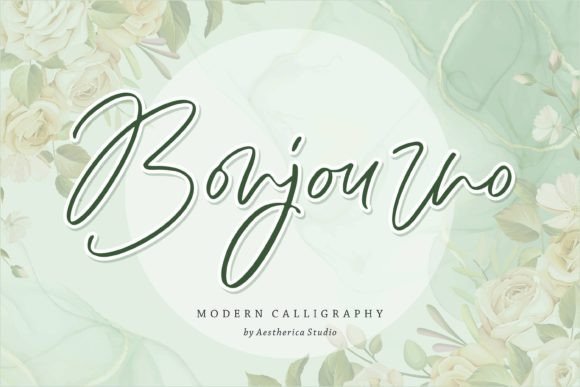
Introducing Bonjourno Font: The Ultimate Modern Calligraphy Font for Designers and Crafters
In the world of typography, calligraphy fonts have always been in high demand for their elegance and sophistication. Among the numerous calligraphy fonts available, Bonjourno font stands out for its unique and beautiful modern handwriting style. In this article, we’ll dive into the features and benefits of Bonjourno font, making it a must-have for designers and crafters.
What is Bonjourno Font?
Bonjourno is a stunning modern calligraphy font that mimics manual handwriting. Its stylish alternates, ligatures, and varying stroke widths give it a realistic handwriting appearance. This font is designed to add a touch of elegance and sophistication to any design project.
Key Features of Bonjourno Font
- Stylistic Alternates: Bonjourno font comes with a range of stylistic alternates, allowing you to create unique and varied designs.
- Ligatures: The font features beautiful ligatures that connect letters seamlessly, giving it a fluid and natural look.
- Tick and Thin Strokes: The varying stroke widths, including tick and thin strokes, add to the font’s handwriting-like appearance.
Use Cases for Bonjourno Font
Bonjourno font is incredibly versatile and can be used for a wide range of design projects, including:
- Logos: Create stunning logos for businesses, events, or personal brands.
- Invitations: Design elegant invitations for weddings, parties, or corporate events.
- Labels: Add a touch of sophistication to product labels, packaging, or branding materials.
- Magazines and Books: Use Bonjourno font for headings, titles, or quotes in magazines, novels, or books.
- Greeting/Wedding Cards: Create beautiful greeting cards, wedding cards, or stationery.
- Packaging: Elevate product packaging with Bonjourno font’s elegant and modern style.
- Fashion and Make-up: Use the font for fashion branding, make-up packaging, or beauty product labels.
- Stationery: Design stunning stationery, including letterheads, notebooks, or journals.
- Advertising: Incorporate Bonjourno font into advertising materials, such as billboards, posters, or social media graphics.
Why Choose Bonjourno Font?
With so many calligraphy fonts available, why choose Bonjourno font? Here are a few reasons:
- Unique Style: Bonjourno font boasts a distinctive and modern handwriting style that sets it apart from other calligraphy fonts.
- Elegance and Sophistication: The font exudes elegance and sophistication, making it perfect for high-end designs.
- Versatility: Bonjourno font can be used for a wide range of design projects, from logos to stationery.
- Easy to Read: Despite its elegant style, Bonjourno font remains easy to read, making it suitable for body text and headings.
Tips for Using Bonjourno Font
To get the most out of Bonjourno font, follow these tips:
- Pair with Simple Fonts: Pair Bonjourno font with simple, clean fonts to create a striking contrast.
- Experiment with Colors: Try Bonjourno font with different colors to add depth and interest to your design.
- Use for Headings: Use Bonjourno font for headings, titles, or quotes to add a touch of elegance.
- Keep it Simple: Don’t over-accessorize your design – let Bonjourno font shine on its own.
Bonjourno font is an exceptional modern calligraphy font that offers a unique and elegant handwriting style. Its versatility, readability, and stunning appearance make it a must-have for designers and crafters. Whether you’re creating logos, invitations, labels, or advertising materials, Bonjourno font is sure to elevate your designs to the next level.